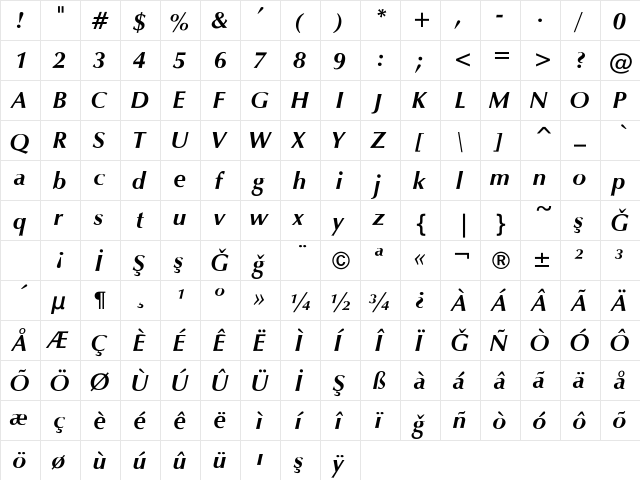
Zapf_ Humanist Bold Italic
Design Context for Zapf_ Humanist Typeface
Zapf_ Humanist is a composed and adaptable typeface that performs quietly and consistently across a wide range of design contexts. The dynamic lean of this cut emphasises speed and emphasis in any layout. The heavy weight commands attention and anchors typographic hierarchies.
Pro Tip: Use Zapf_ Humanist for emphasis, pull quotes, and subheadings where its slanted energy can add rhythm to the layout.